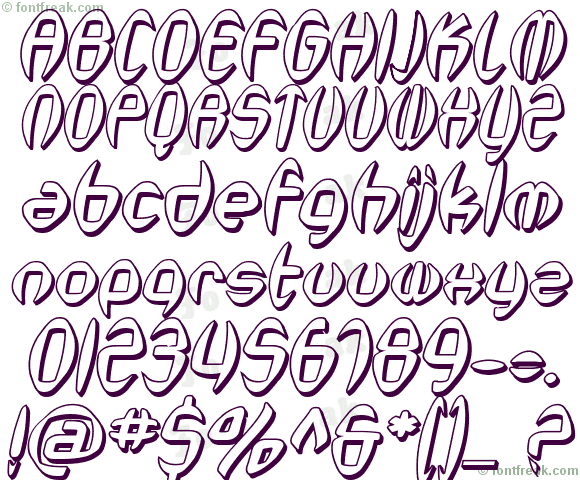
About Synthonic Pop
Synthonic Pop by Shyfonts Type Foundry is a striking display font that embodies a modern and dynamic aesthetic. This freeware typeface is characterized by its condensed structure, making it an excellent choice for headlines and attention-grabbing text. With a bold stroke weight and a unique oblique shape, Synthonic Pop features a shaded style that adds depth and dimension to its characters. The distinct visual characteristics include a playful yet sophisticated balance of high contrast and well-defined edges, ensuring legibility even at smaller sizes.
This typeface shines in various applications, making it a versatile addition to any designer's toolkit. It is particularly well-suited for movie posters, where its energetic vibe can captivate audiences and convey excitement. Additionally, Synthonic Pop is an excellent choice for music event flyers, as the name suggests a lively, synth-inspired theme. Small business owners can effectively utilize this font in branding materials, such as logos and storefront signage, to create a memorable identity. Content creators, including bloggers and social media managers, may find it perfect for eye-catching titles and graphics that demand attention.
The target audience for Synthonic Pop includes graphic designers seeking innovative type options, small business owners looking to enhance their branding, and content creators aiming to elevate their visual storytelling. The font's unique combination of boldness and playfulness makes it an appealing choice for those wanting to make a statement.
In conclusion, Synthonic Pop stands out not only for its aesthetic qualities but also for its versatility across different mediums. Its engaging style and free availability make the Synthonic Pop font free download a fantastic opportunity for anyone looking to enhance their design projects with a contemporary edge.